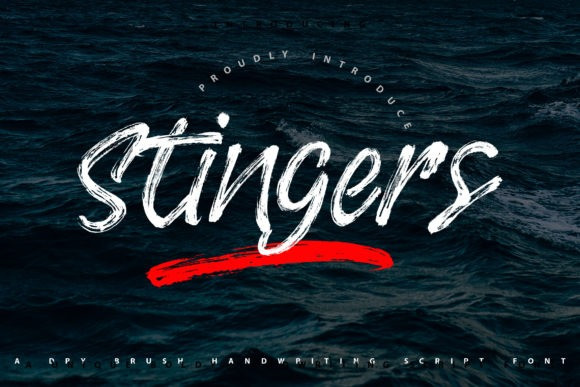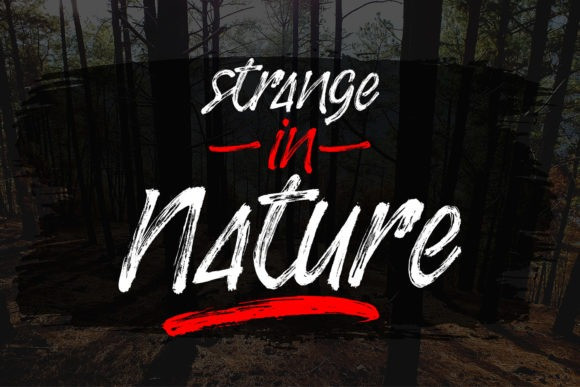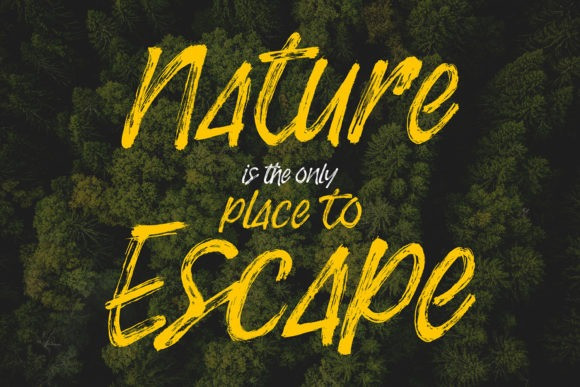
Stingers Font
Stingers is a cool, brushed display font. No matter the topic, this font will be an incredible asset to your fonts’ library, as it has the potential to elevate any creation.